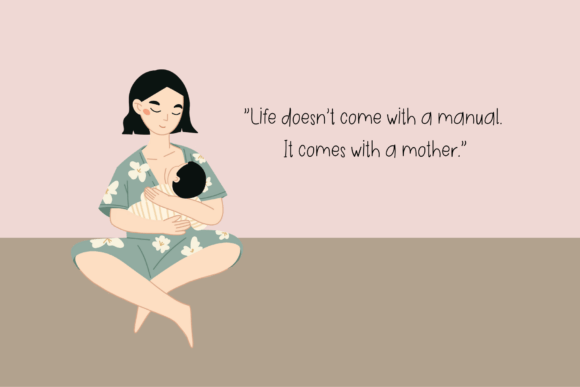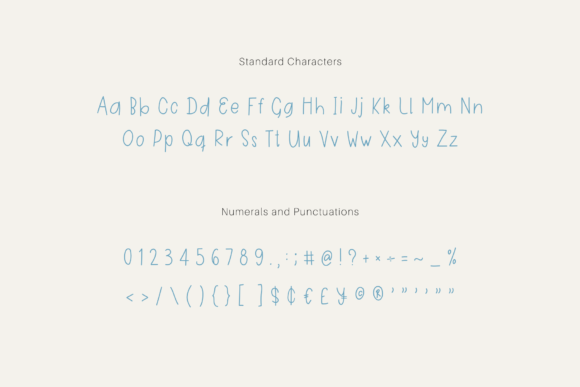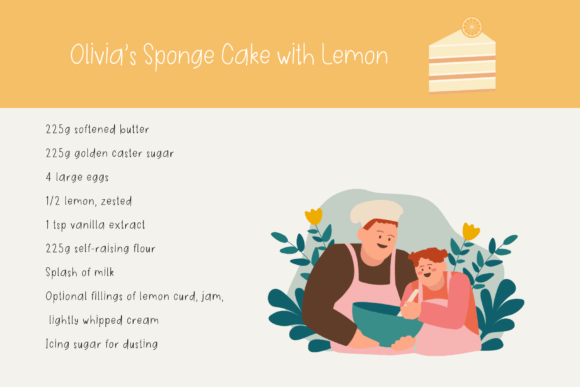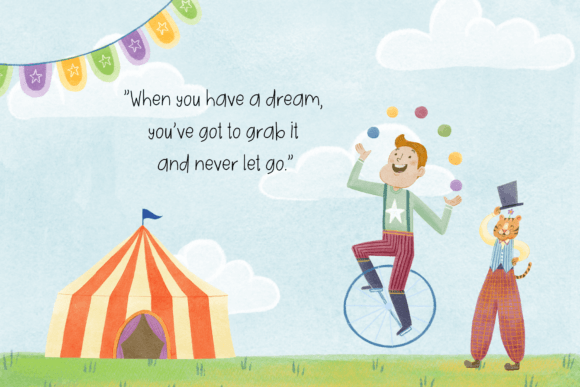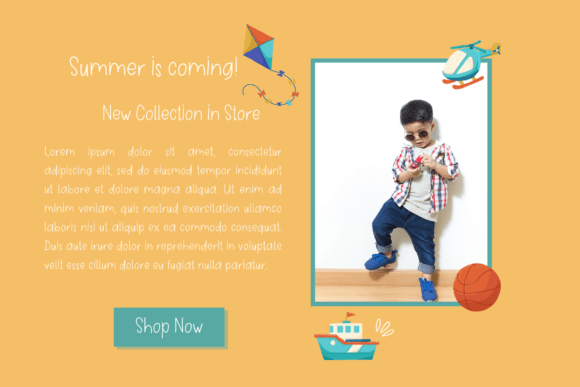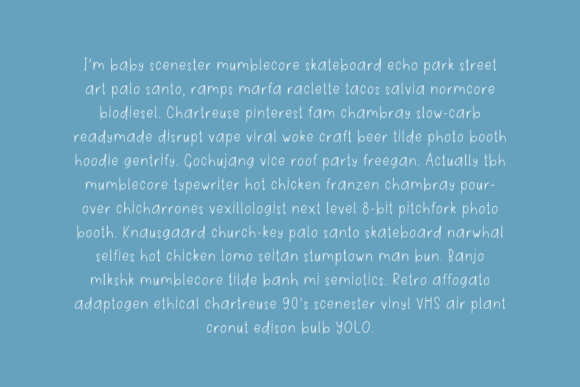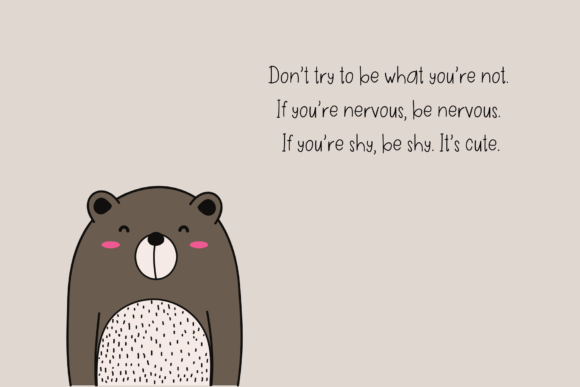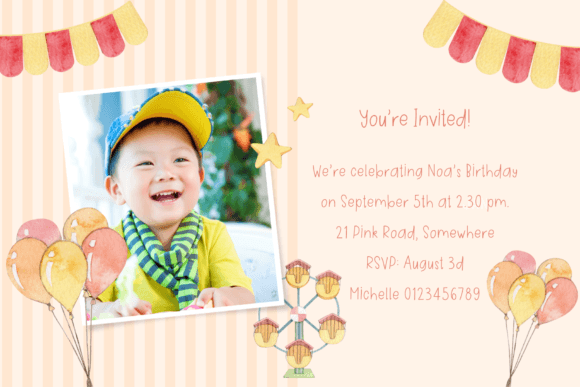
Einar Circuson Font
About Einar Circuson Font
Introducing Einar Circuson, a cute and lovely handwritten font designed to bring charm and playfulness to your creative projects. Whether you’re journaling, creating digital notes, scrapbooking, designing invitations, establishing a brand identity on Instagram, crafting cards, sharing on social media, or creating stickers, Einar Circuson is the perfect choice for a variety of applications!
The cute and lovely characteristics of Einar Circuson make it a versatile and engaging font. Its handwritten style adds a personal touch, creating a warm and inviting atmosphere.
Imagine Einar Circuson enhancing your journal entries with its adorable and expressive script or making your digital notes more visually appealing. Visualize it adding a playful touch to your scrapbooking projects or creating invitations that radiate a delightful and whimsical vibe.
Einar Circuson is designed to be more than just a font; it becomes a creative tool that effortlessly adapts to your design needs. Its versatility ensures that it seamlessly integrates into both digital and print contexts, adding a cute and lovely vibe to your projects.
Add Einar Circuson to your font collection and discover how it effortlessly becomes your go-to choice for infusing creativity and charm into your creative endeavors!